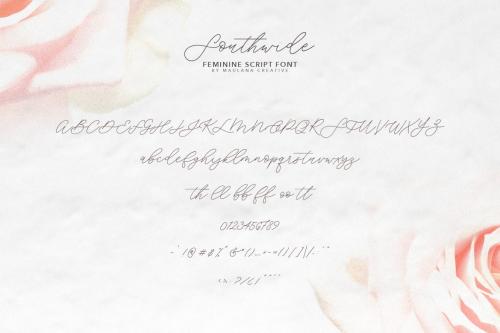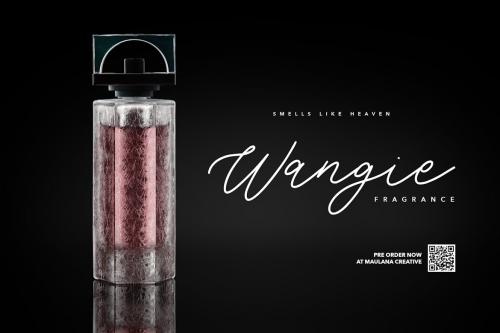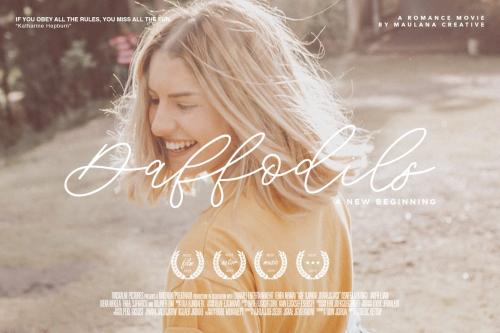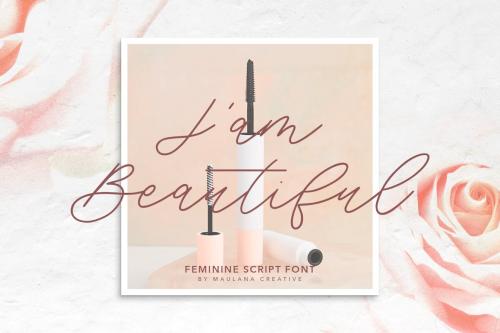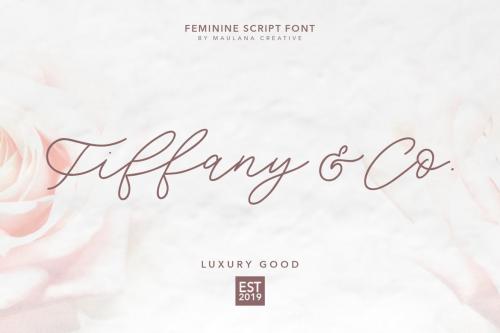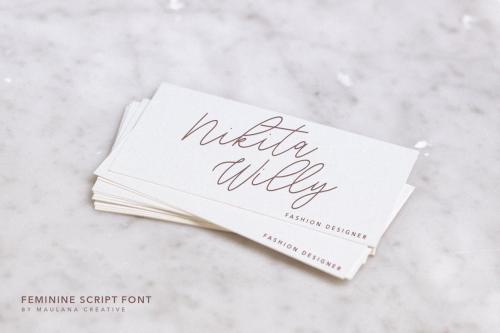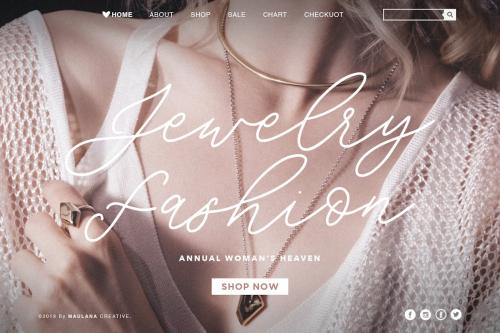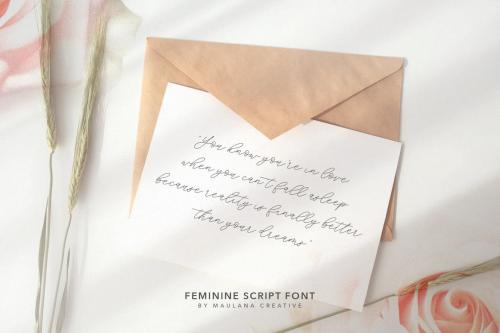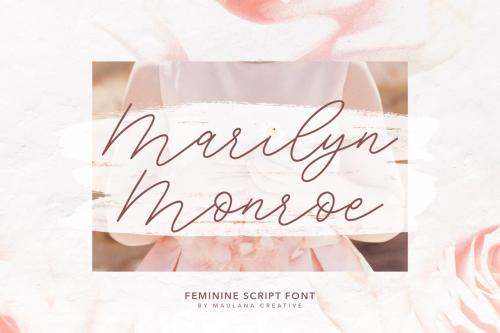
南部女性手写体字体
Southwide Feminine Script Font
Give your designs an authentic handcrafted feel. "Southwide" is perfectly suited to signature, stationery, logo, typography quotes, magazine or book cover, website header, clothing, branding, packaging design and more. Include Ligatures.
Ligature Includes: th, ll, oo, tt, bb, ff